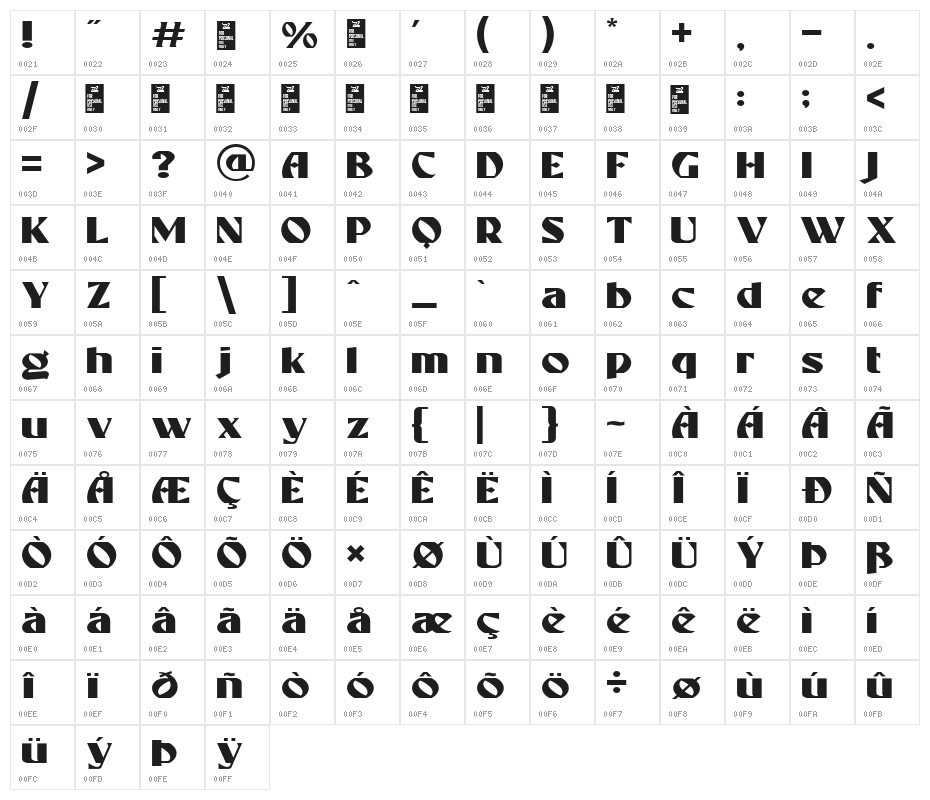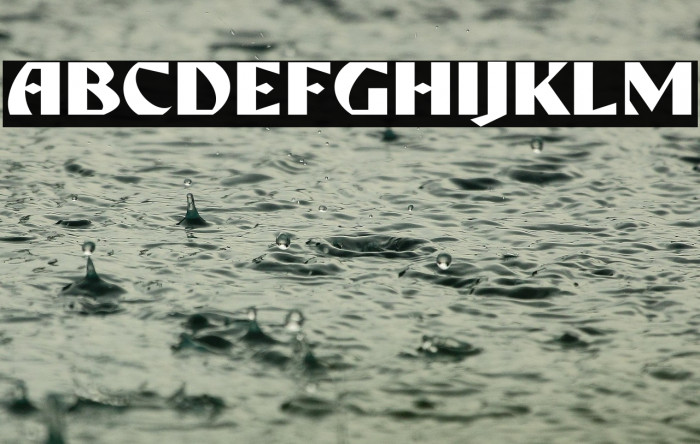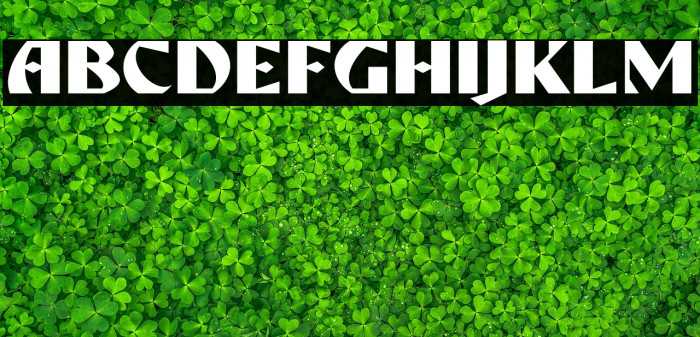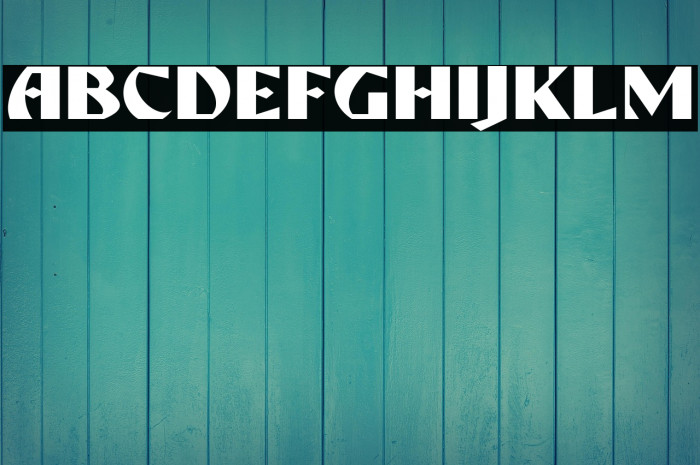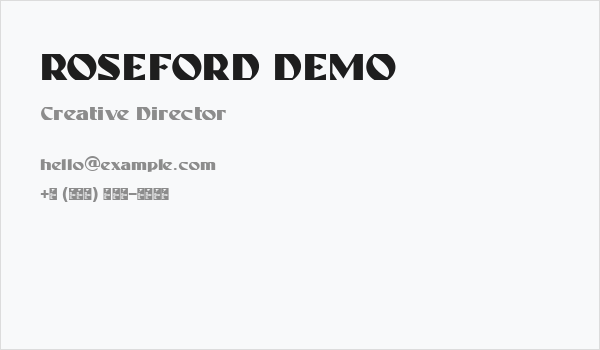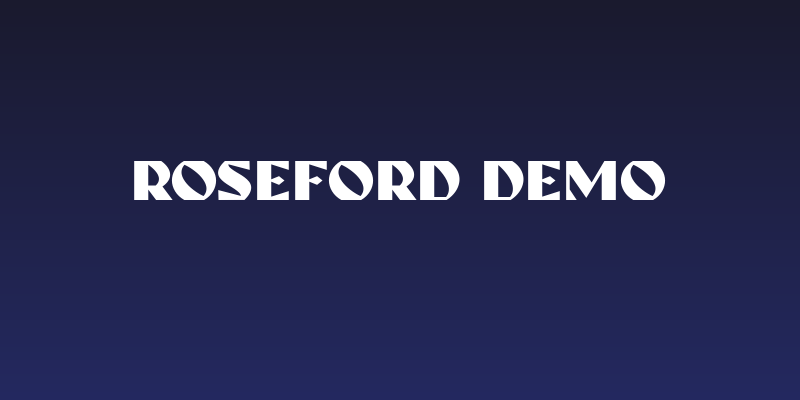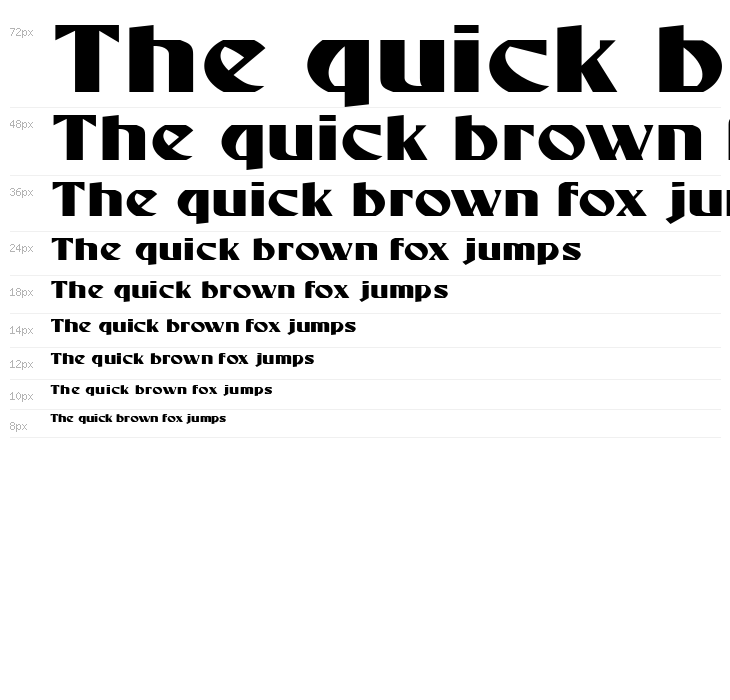
ROSEFORD DEMO Font
ROSEFORD DEMO Description
This font features a bold and striking design with sharp, angular edges and a strong presence. The uppercase letters are particularly prominent, with a geometric style that conveys a sense of modernity and strength. The lowercase letters maintain a consistent style, offering a cohesive look across different text sizes. The numbers and special characters are equally bold, ensuring readability and impact. This font is ideal for making a statement, with its high contrast and distinctive appearance.
| Proposed Projects | Ideal for branding, posters, headlines, and any project requiring a strong visual impact. |